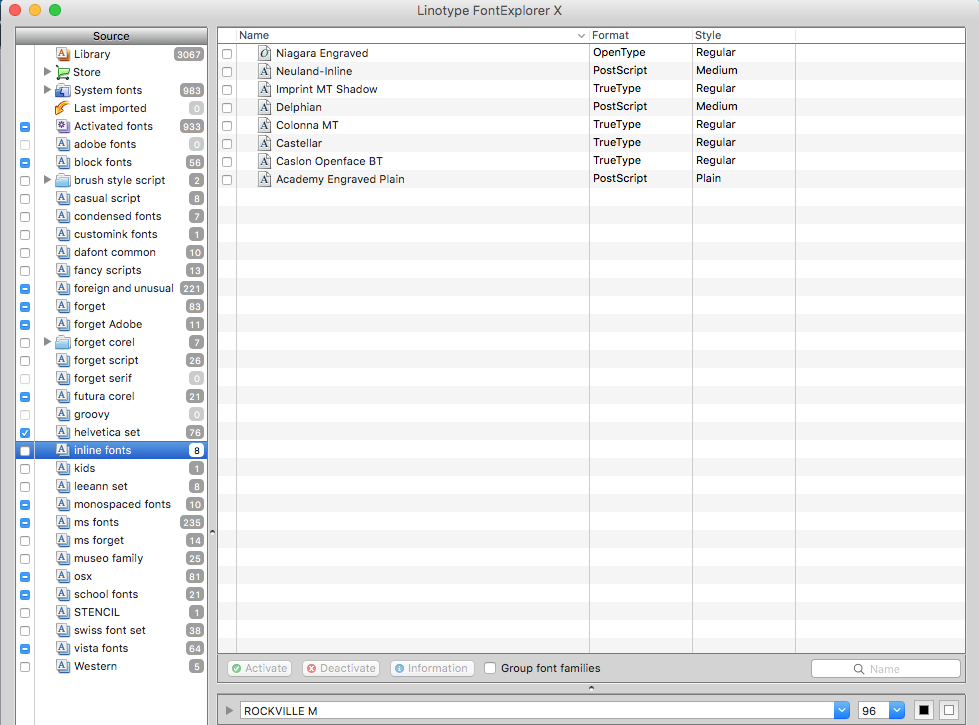
Question Adobe Cc Font Classification?
In the newer Illustrator CC fonts can be sorted by Classification, similarity, etc easily through the drop down menu.
Anyways, it just automatically sorts the fonts you have installed and classifies them into its own pre-determined groups. However, some fonts aren't classified correctly. I would also like to add my own classification groups. ie firefighter, police, industrial, etc. Is this possible? I cannot see any way to manually edit these aspects.
It is probably some internal programming. Have you tried doing the same thing in a font organizing program such as Font Explorer?
I have categories for Inline fonts, casual scripts, fancy scripts, cartoon, athletic, etc. I also have a set called Forget Script, Forget Sans. There are certain fonts that I always seem to forget their names so I categorize them that way.
Here is a screen capture of my program
However, this is not what I am wanting to do, since it appears Adobe has integrated something very similar into Illustrator already, I was wondering if it had an interface that I am missing.